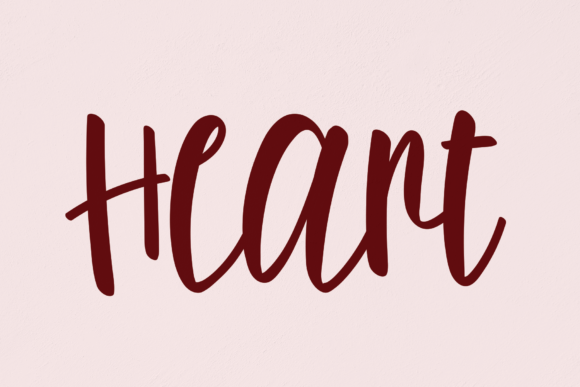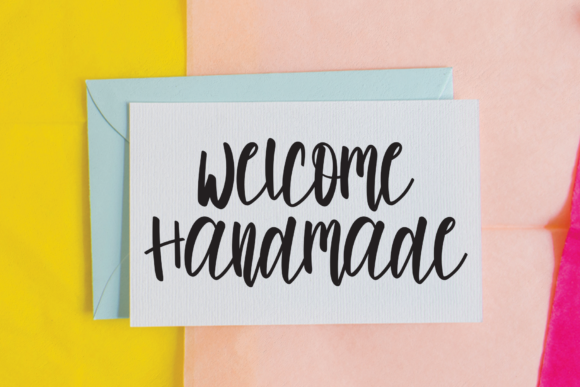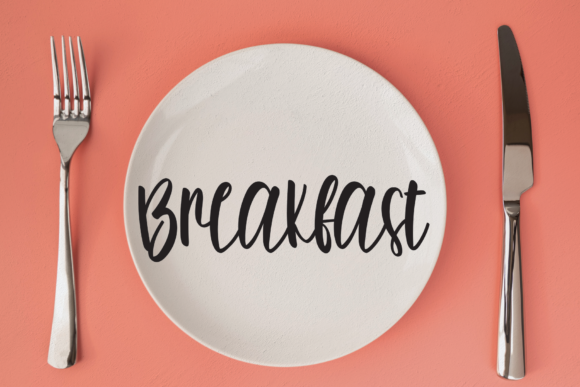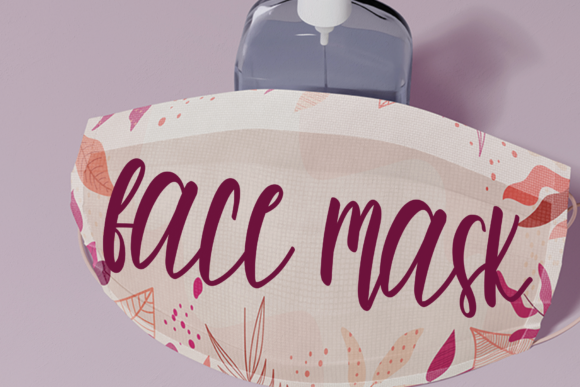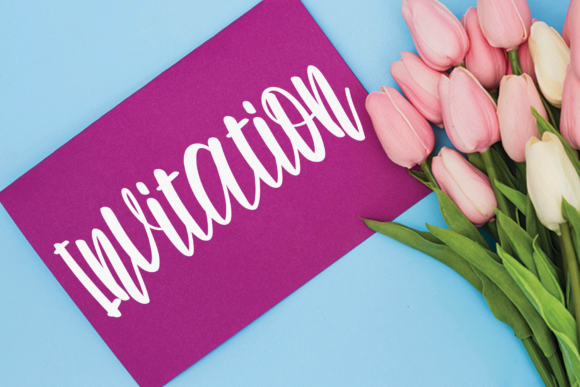
Heart Font
About Heart Font
Heart is a flowing and stylish handwritten font, perfectly resembling natural writing. This typeface is a great choice for projects that need an authentic look!